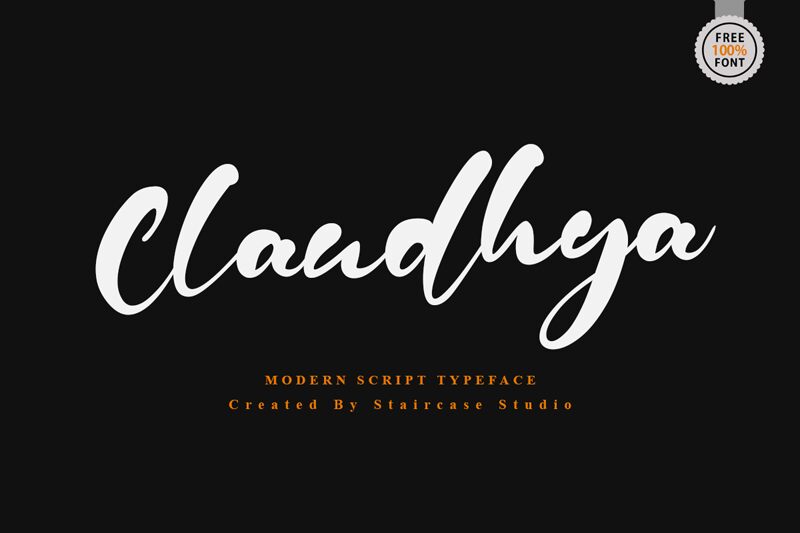
Claudhya
Claudhya, the latest creation from Staircase Studio, is a modern script font that exudes elegance and sophistication. With its semi-bold weight and flowing curves, it's perfect for projects that require a touch of refinement - think wedding invitations or high-end branding materials. The versatility of Claudhya extends beyond the traditional script font applications; it also works wonders in digital designs like social media graphics and website headers. Whether you're looking to add some class to your print materials or elevate your online presence, Claudhya is the perfect typeface for any project in need of a sophisticated touch.